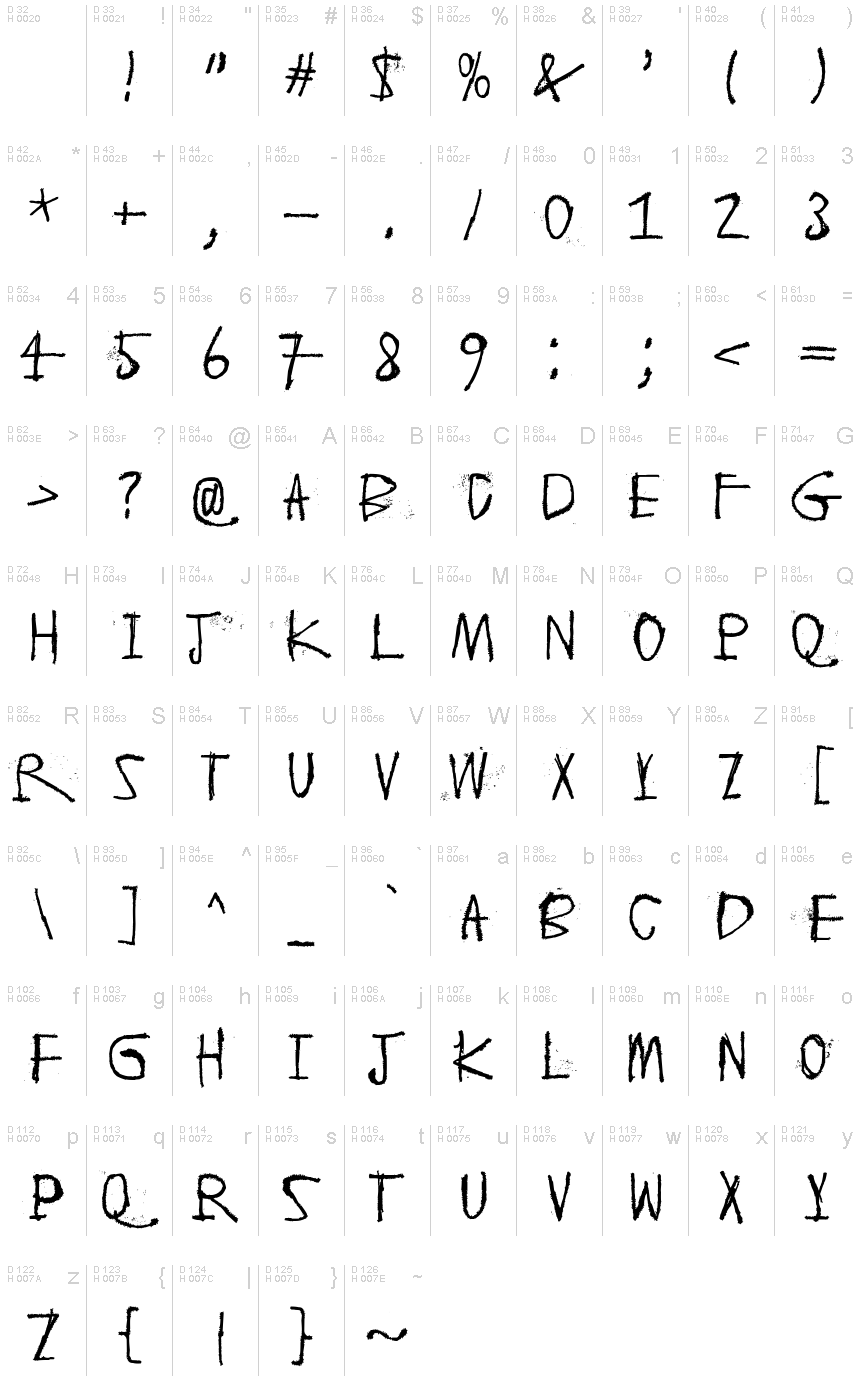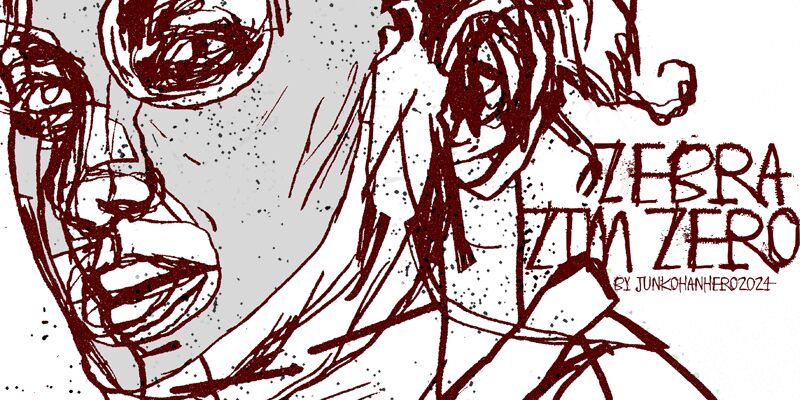
Zebra zim zero
Zebra Zim Zero, crafted by the talented junkohanhero, exudes a captivating air of raw energy and unapologetic individuality. This script-style font, with its bold strokes and untamed aesthetic, evokes a sense of rebellious charm, making it a standout choice for those seeking to make a bold statement. Its unique character shapes and the deliberate imperfections that lend it a "trash" style create a visually striking and memorable impression.
Zebra Zim Zero's versatility shines through its ability to elevate a wide range of design projects, from edgy branding and packaging to striking editorial layouts and eye-catching event materials. Its dynamic personality lends itself particularly well to projects that aim to convey a sense of authenticity, rebelliousness, or a youthful, unconventional spirit.